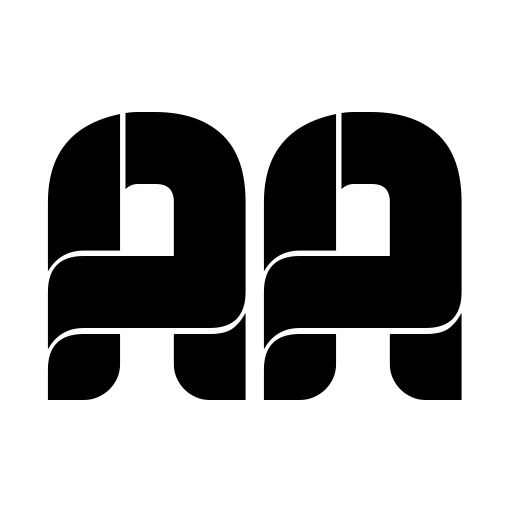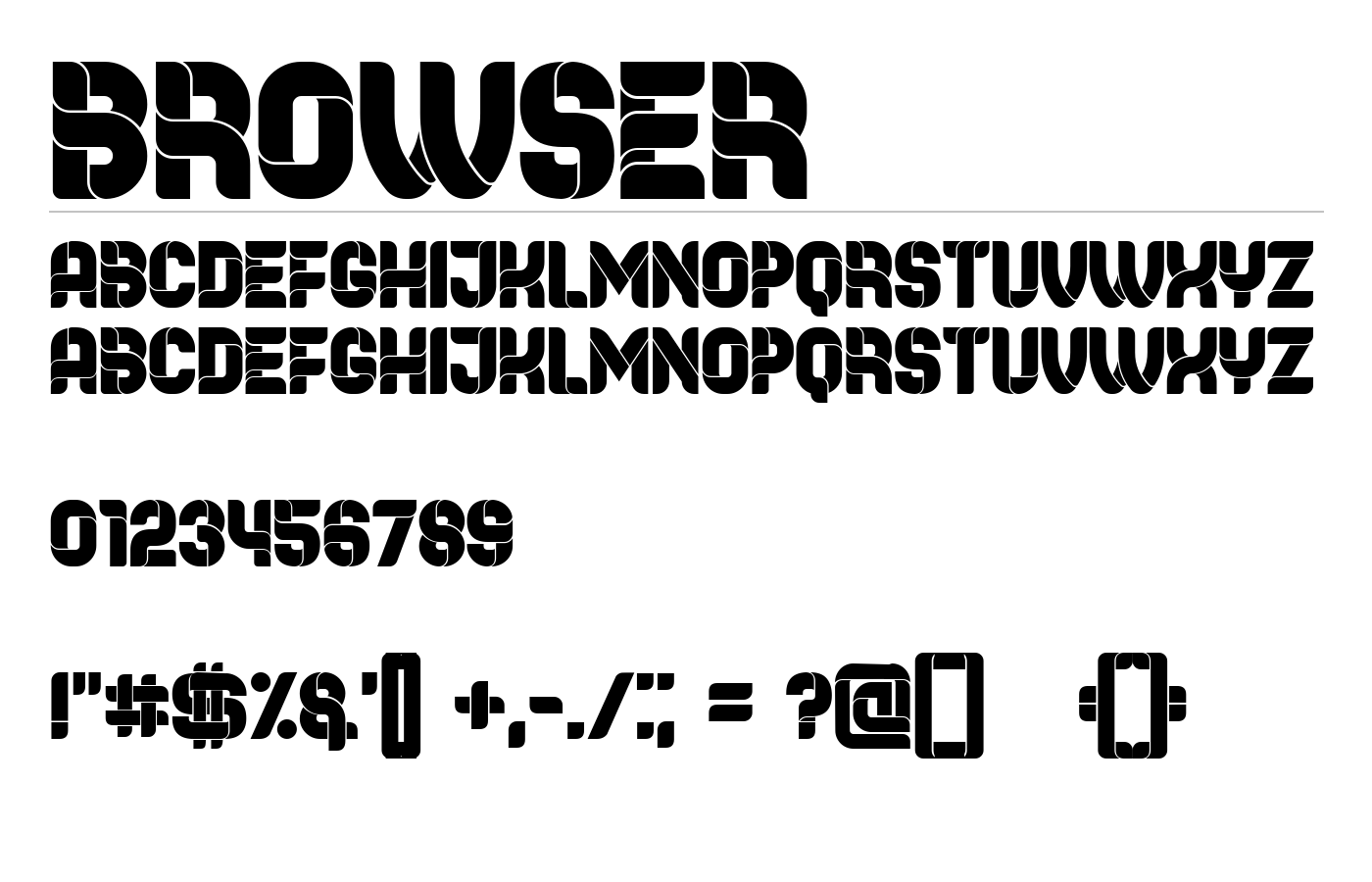
Browser Font is a bold, modern display typeface with a strong geometric style and high stroke contrast that creates a visually striking, modular look. Its thick, rounded shapes combined with sharp internal cutouts give it a futuristic, tech-inspired personality, making it ideal for logos, headlines, and branding projects that seek to convey innovation and boldness. This font stands out best in large sizes where its unique design details can truly shine.
Browser Font
About Browser Font